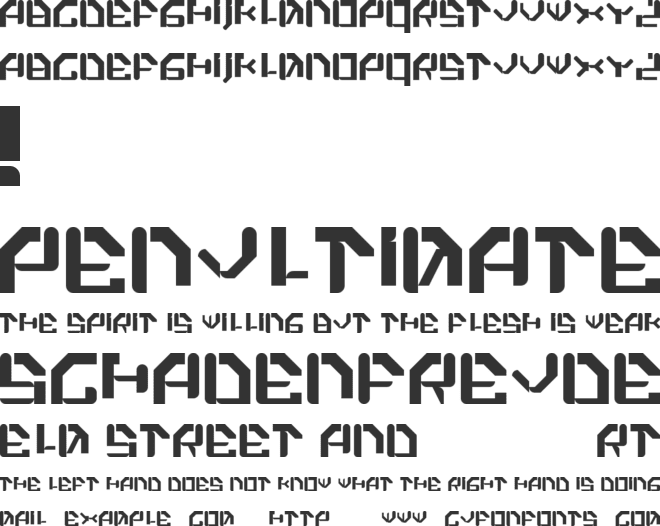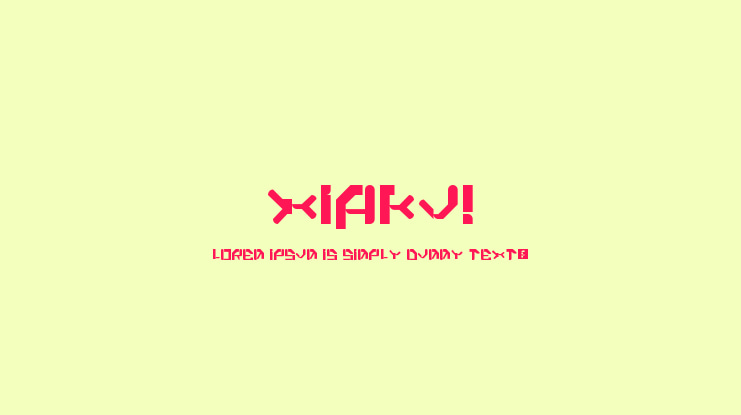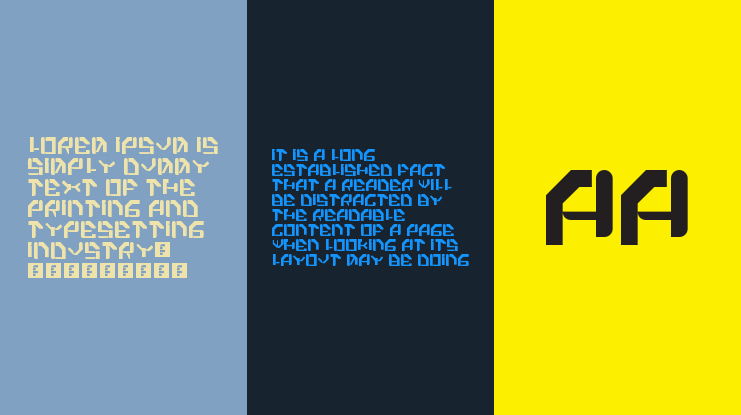
Xiaku! Font
"An experimental font designed with an eastern theme. Some letters carry the theme of an early 'Cutting Edge', while others commonly used in eastern language (e.g X, U, Y, K) are shortened and given an individual look, giving a balance between the 2. The font is designed with this in mind, so it is more suited to eastern words, rather than western. "
Made in 2009.